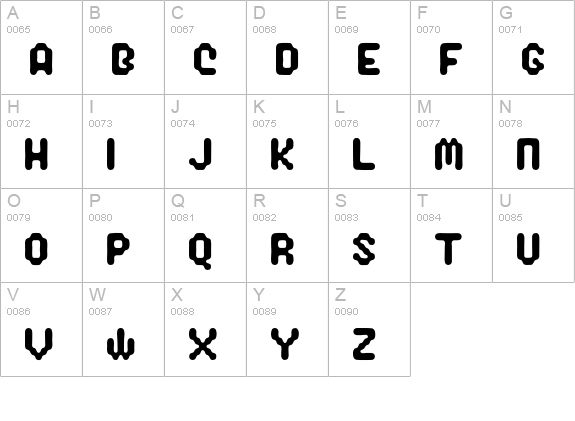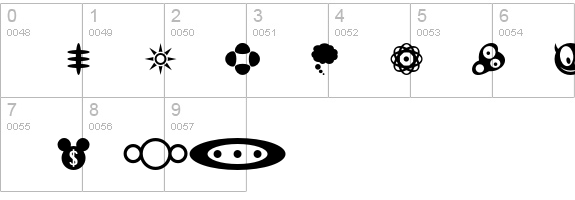
NewHome Font Details
Introducing NewHome font, a stylish and modern typeface perfect for all your design projects. This font exudes elegance and sophistication, making it suitable for a wide range of applications such as branding, advertising, invitations, and more. With its clean lines and contemporary style, NewHome font is sure to make your designs stand out. The best part? NewHome font is completely free to download at FontsMarket.com. Take advantage of this amazing opportunity to enhance your creations with a high-quality font that will elevate your work to the next level. Don't miss out on the chance to add NewHome font to your font collection today!